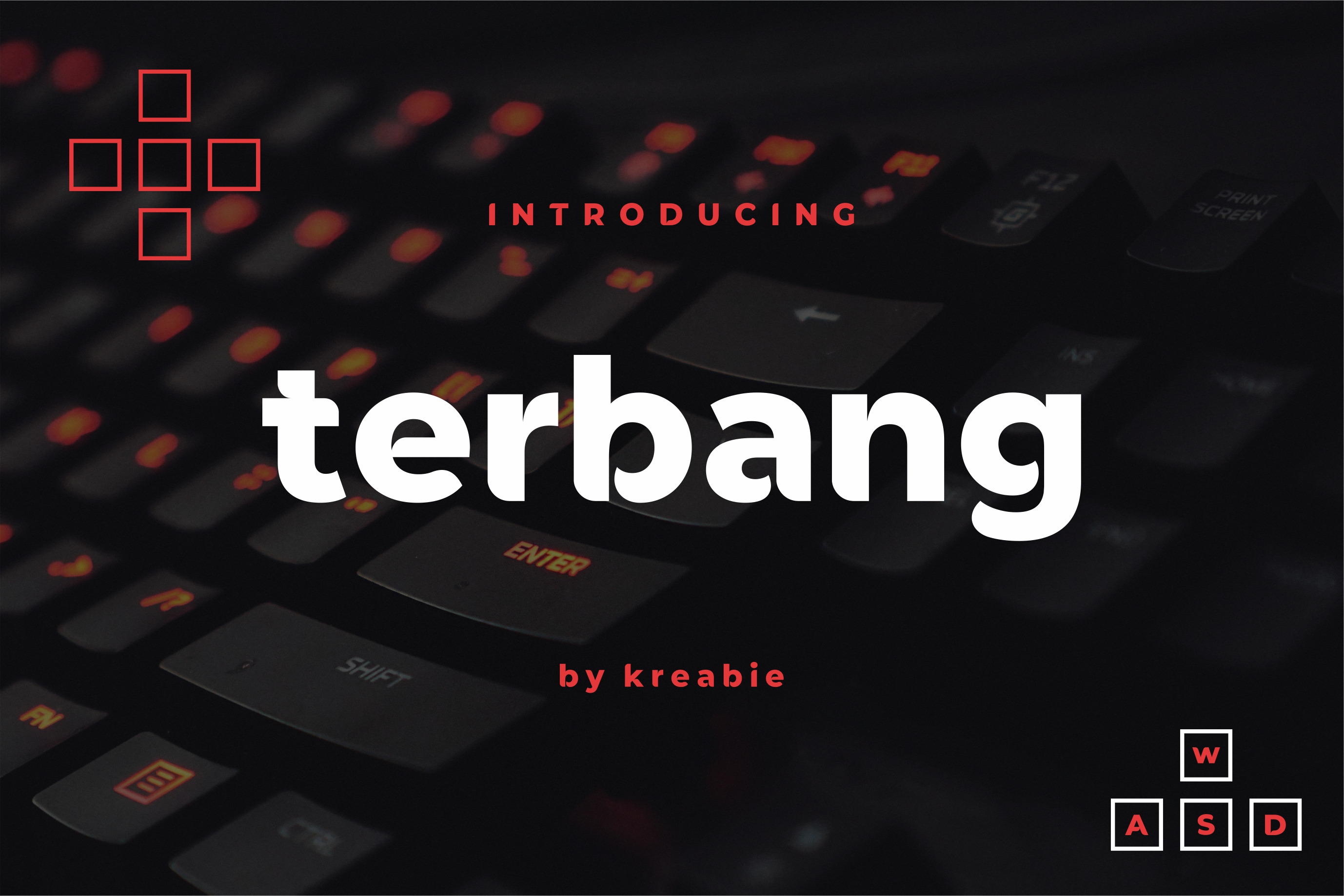
terbang font
terbang Font
Terbang Its unique style makes it stand out, making it perfect for anyone who wants to make a statement.,The font is suitable to use for many occasion.